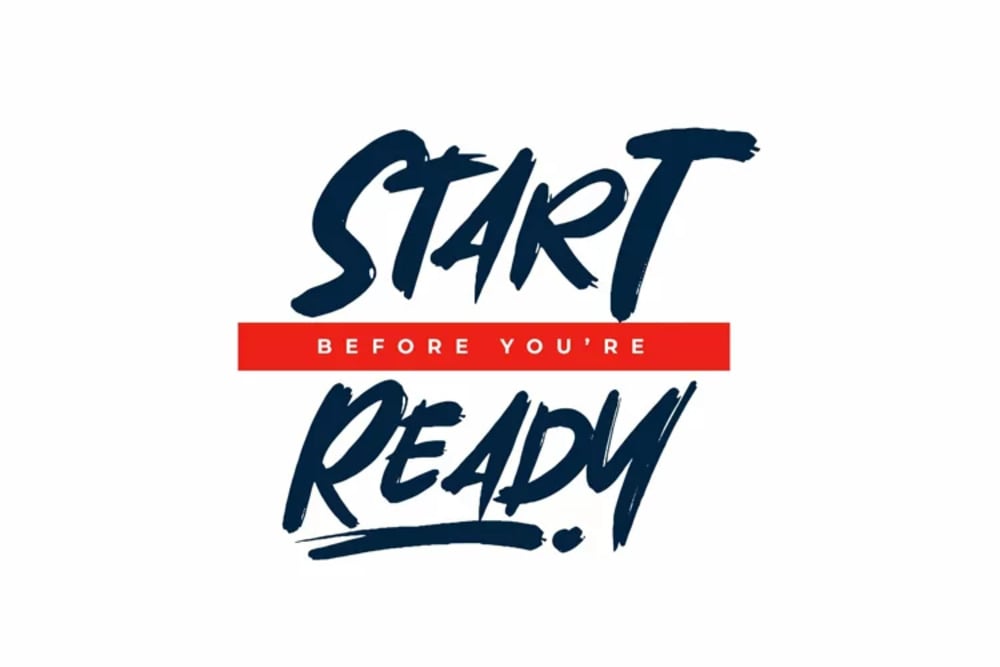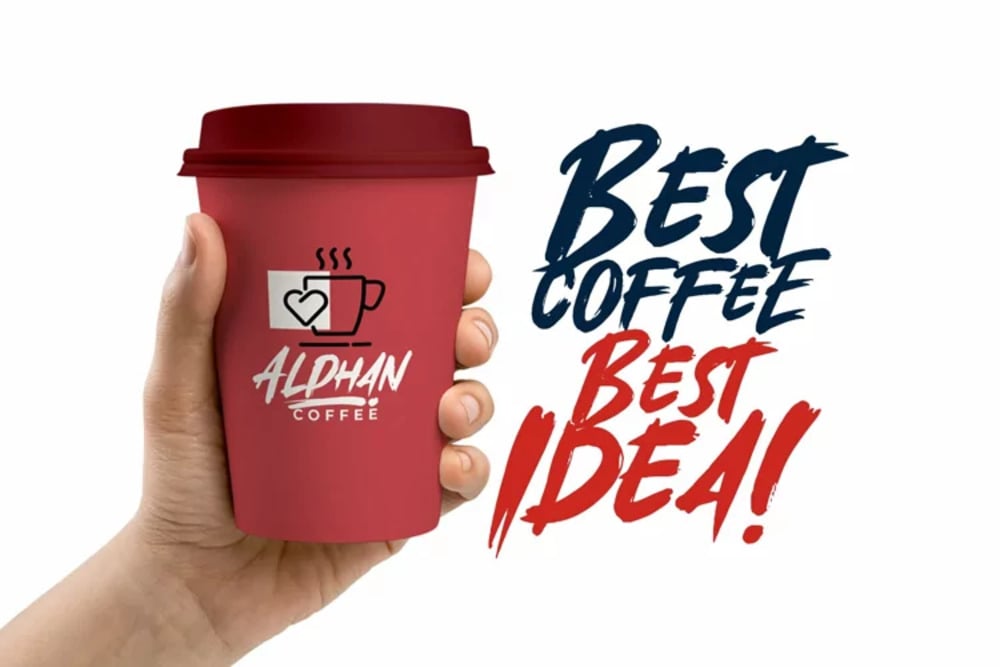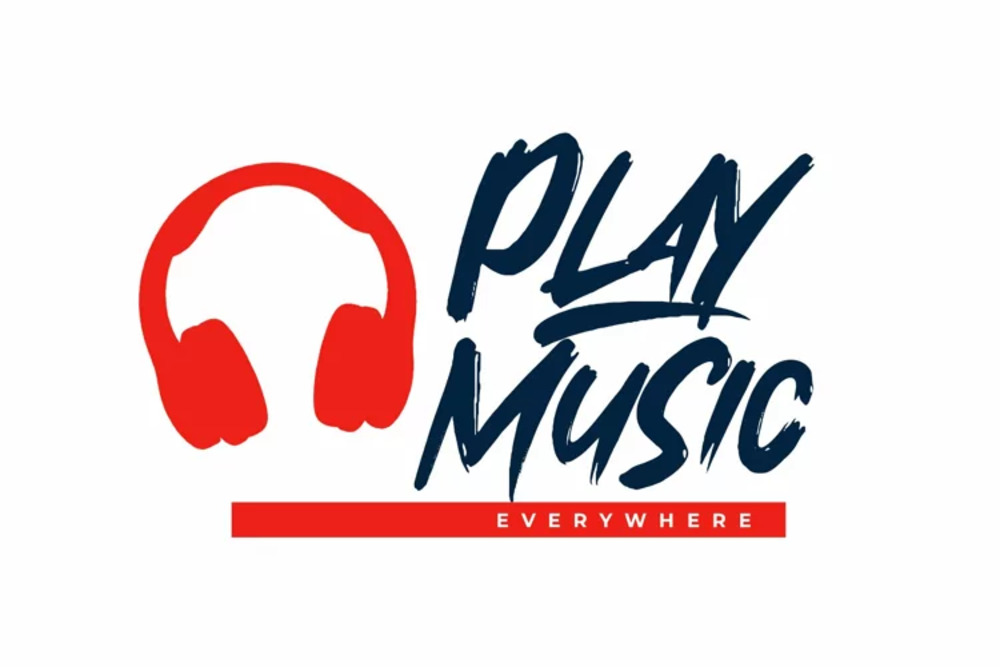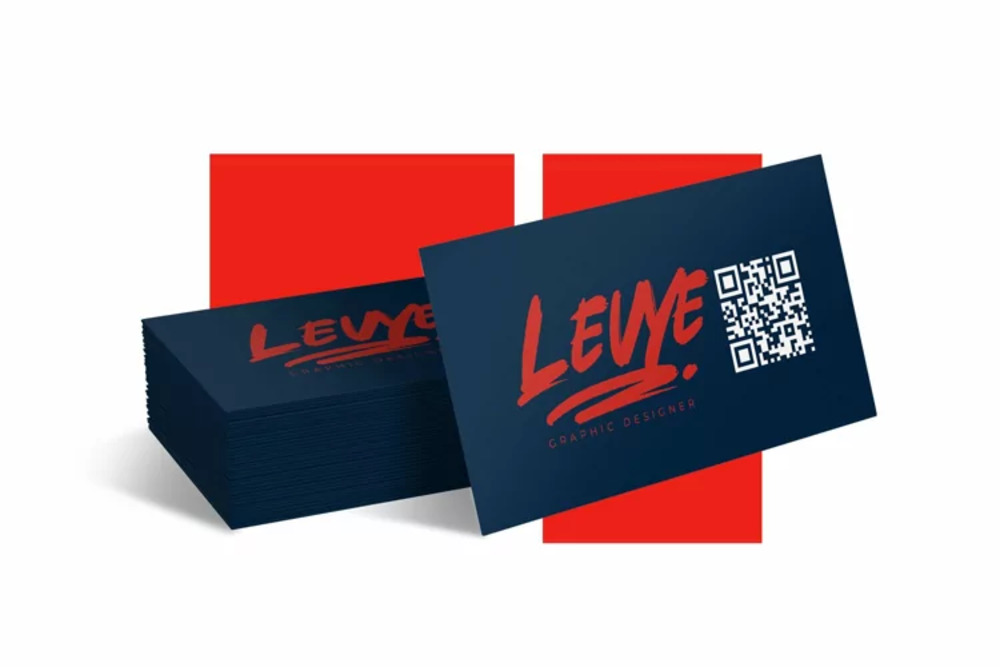
Xtradex Font
Xtradex is a bold, futuristic typeface designed to command attention with its sharp angles and sleek, geometric forms. Perfect for technology, gaming, and sci-fi themes, it exudes a sense of innovation and modernity. The font’s dynamic structure enhances readability while maintaining a striking visual presence. Xtradex is ideal for logos, headlines, and digital interfaces, making a powerful statement in contemporary design projects.